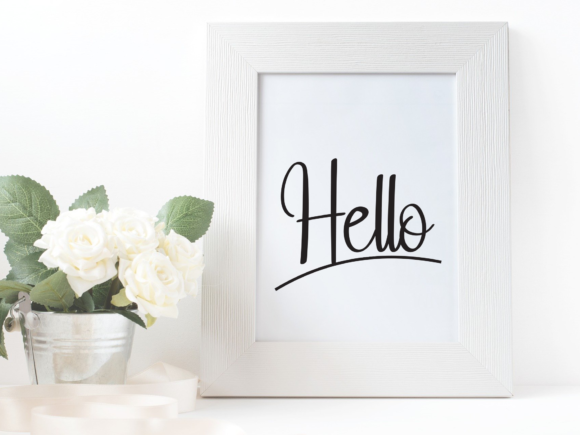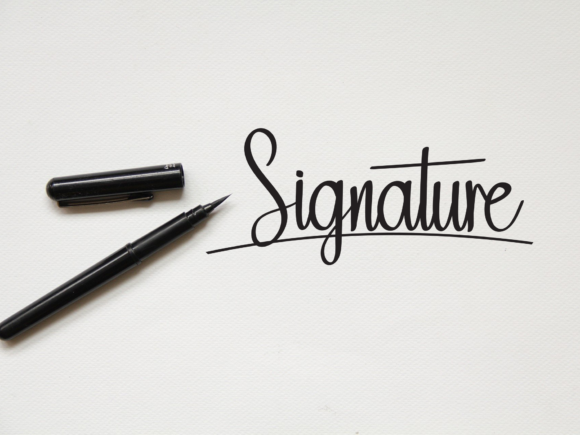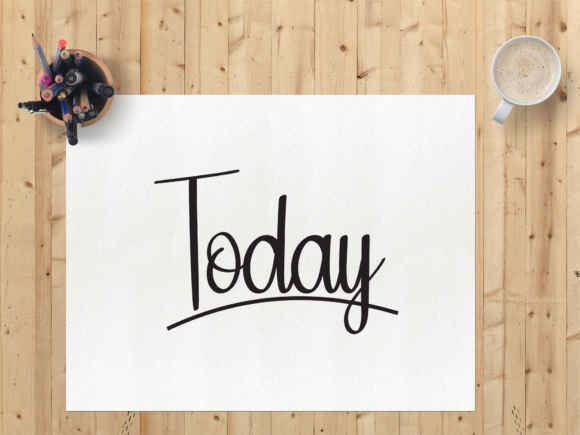
About Holiday Font
Holiday is a sweet handwritten font that is made with great care in order to produce the expected outcomes. This font can be used for writing various kinds of products according to their respective needs.